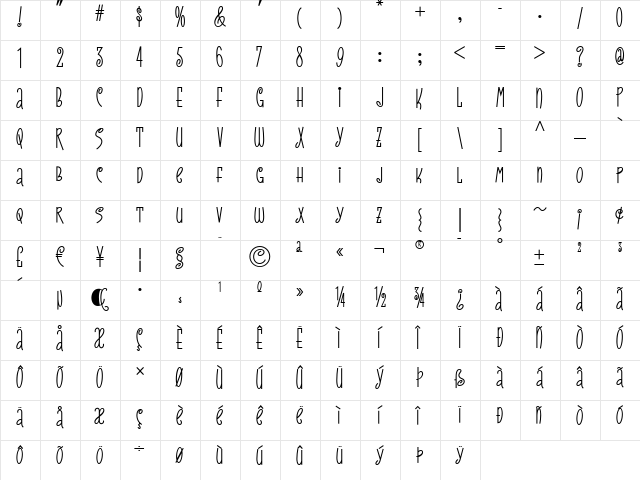
Teeny Boppin NF Regular
Design Context for Teeny Boppin NF Typeface
Teeny Boppin NF is a composed and adaptable typeface that performs quietly and consistently across a wide range of design contexts.